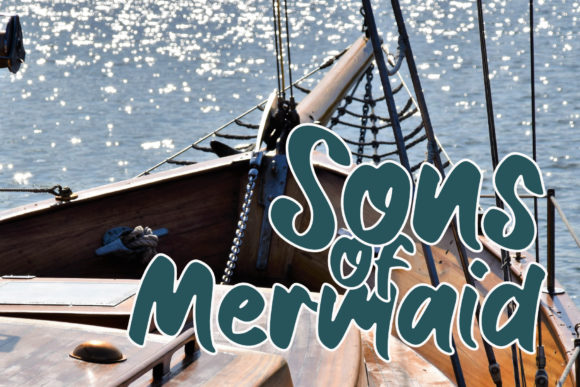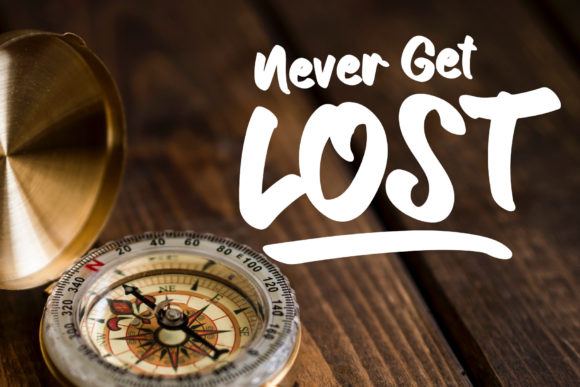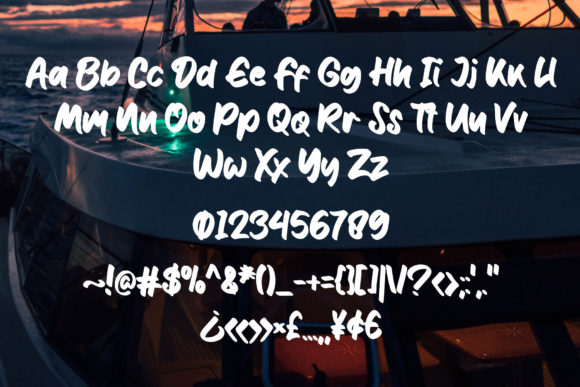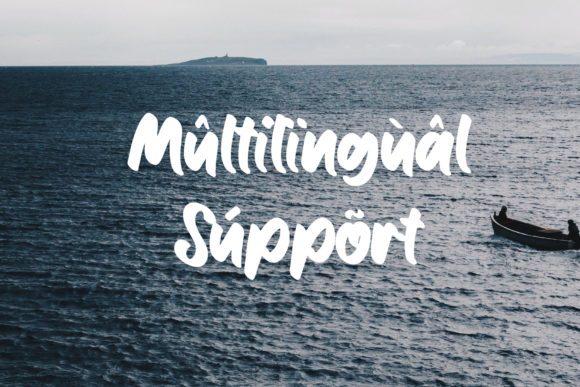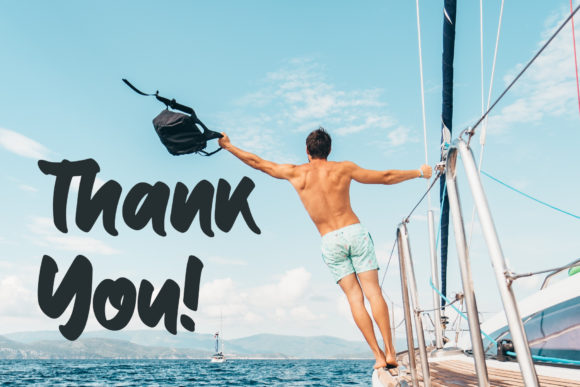
Introduction to Sailorman Font
Sailorman is a playful and cursive, paint brushed handwritten font.
Suitable to a wide variety of designs due to its joyful style, this font has the potential to become your favorite go-to font, no matter the occasion .
Key Features of Sailorman Font